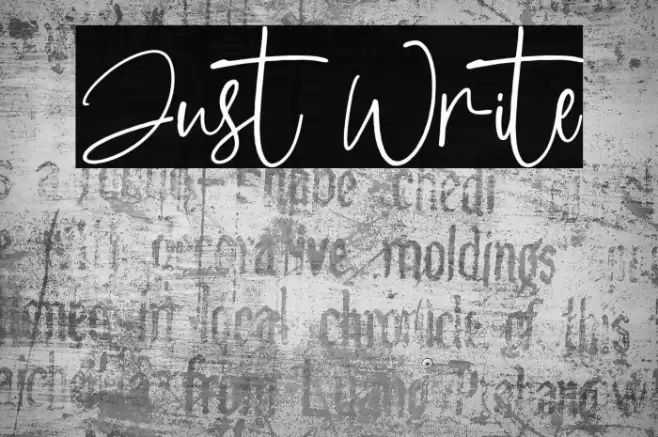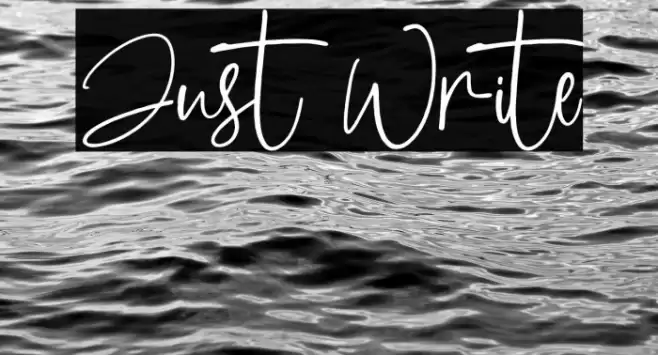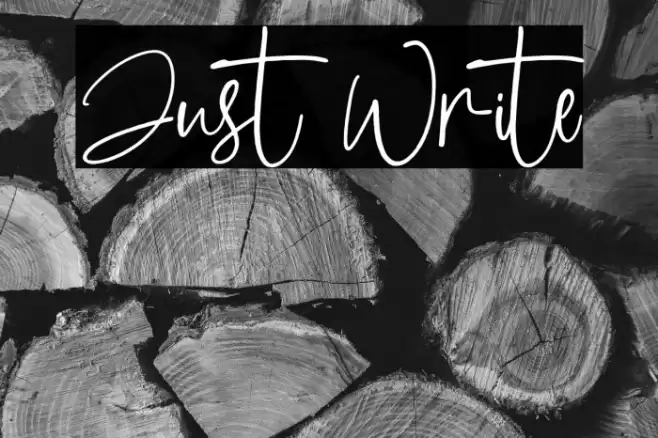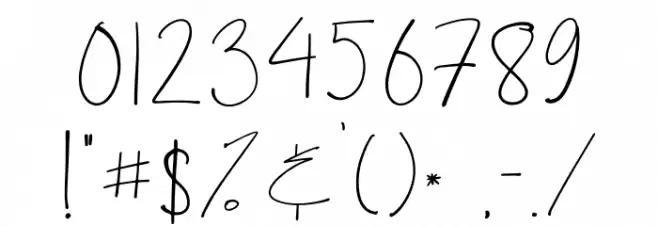
Just Write Font
Just Write Description
This font features a playful and casual handwritten style, characterized by its fluid and dynamic strokes. The uppercase letters are tall and slender, with a slight slant that adds a sense of movement. The lowercase letters are more varied in height, with some characters extending below the baseline, creating a lively and informal appearance. The numerals are consistent with the overall style, maintaining the same playful and handwritten feel. Special characters are seamlessly integrated, maintaining the font's cohesive look. This font is perfect for projects that require a personal touch, such as invitations, greeting cards, or creative branding.
A playful and casual handwritten font with fluid strokes from Regular fonts.
- Proposed Projects: Ideal for invitations, greeting cards, and creative branding.
- Overall Style: Casual
- Use Case: Logos, Headlines, Invitations